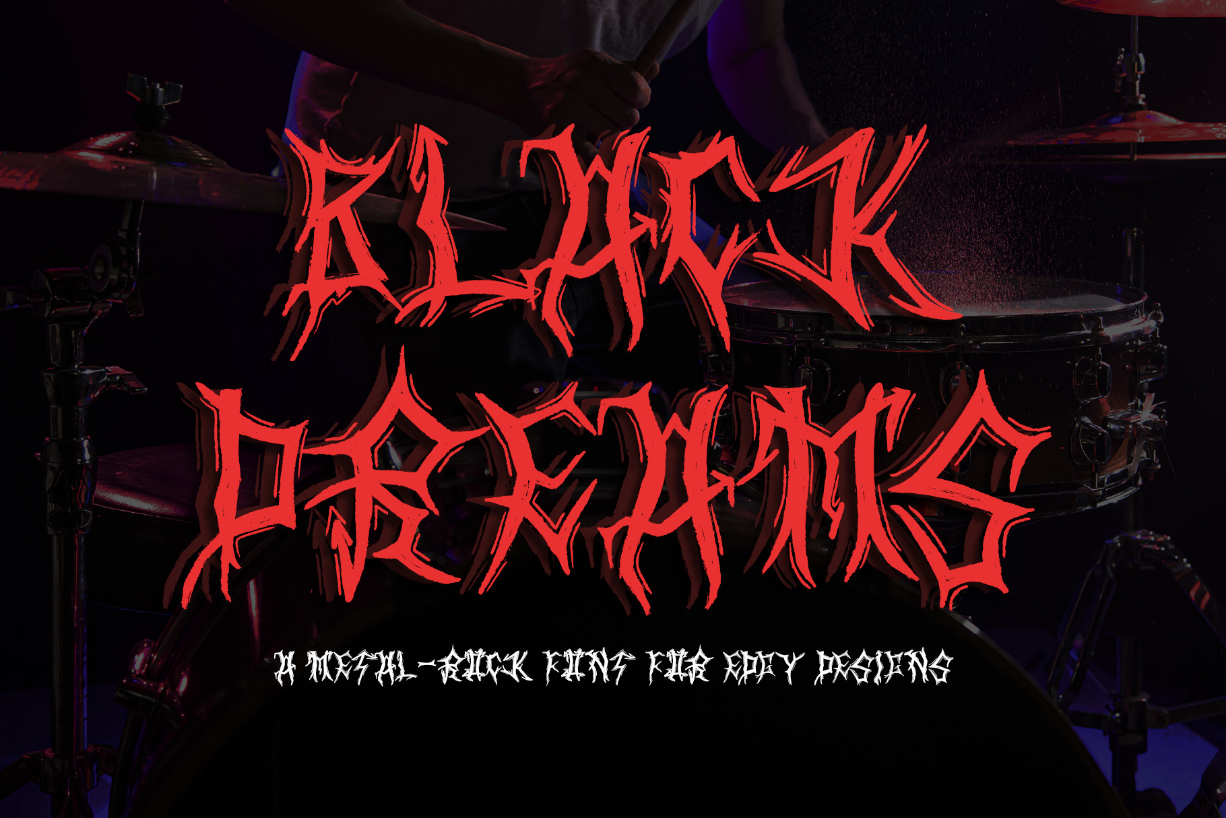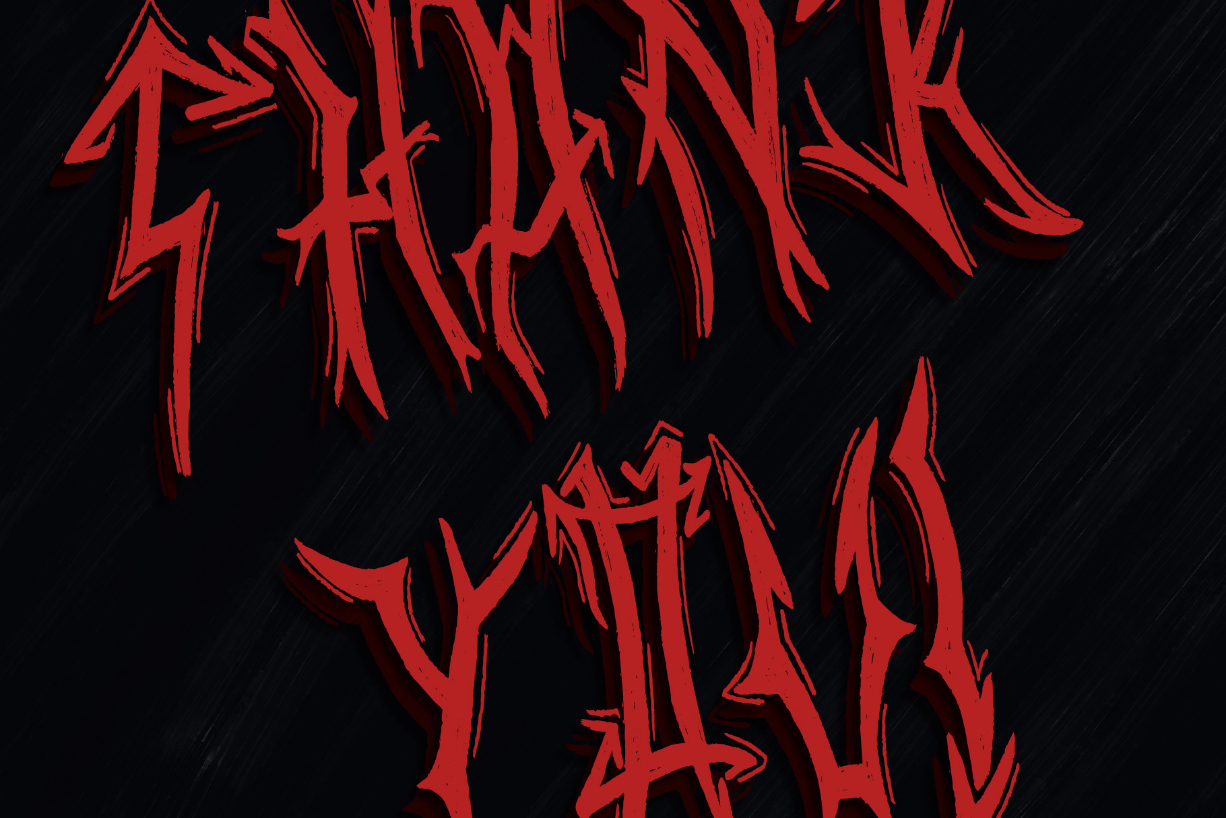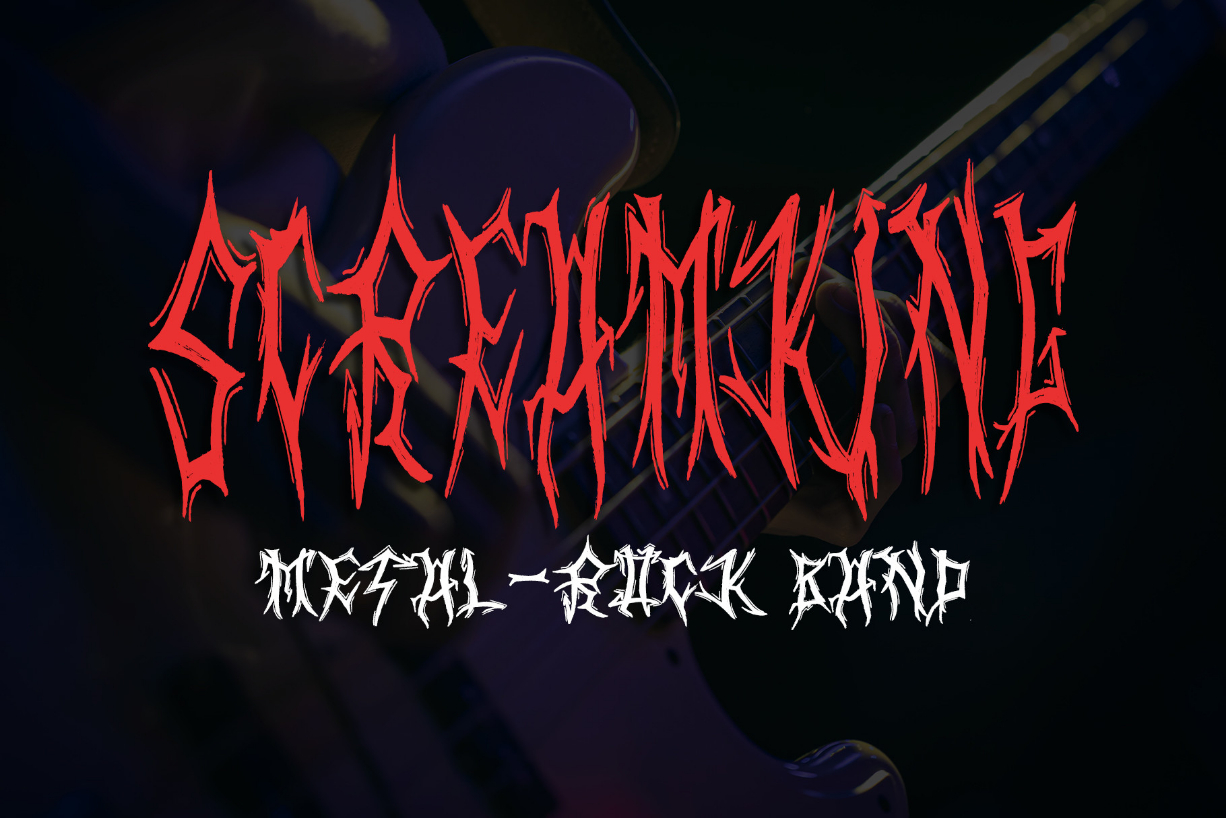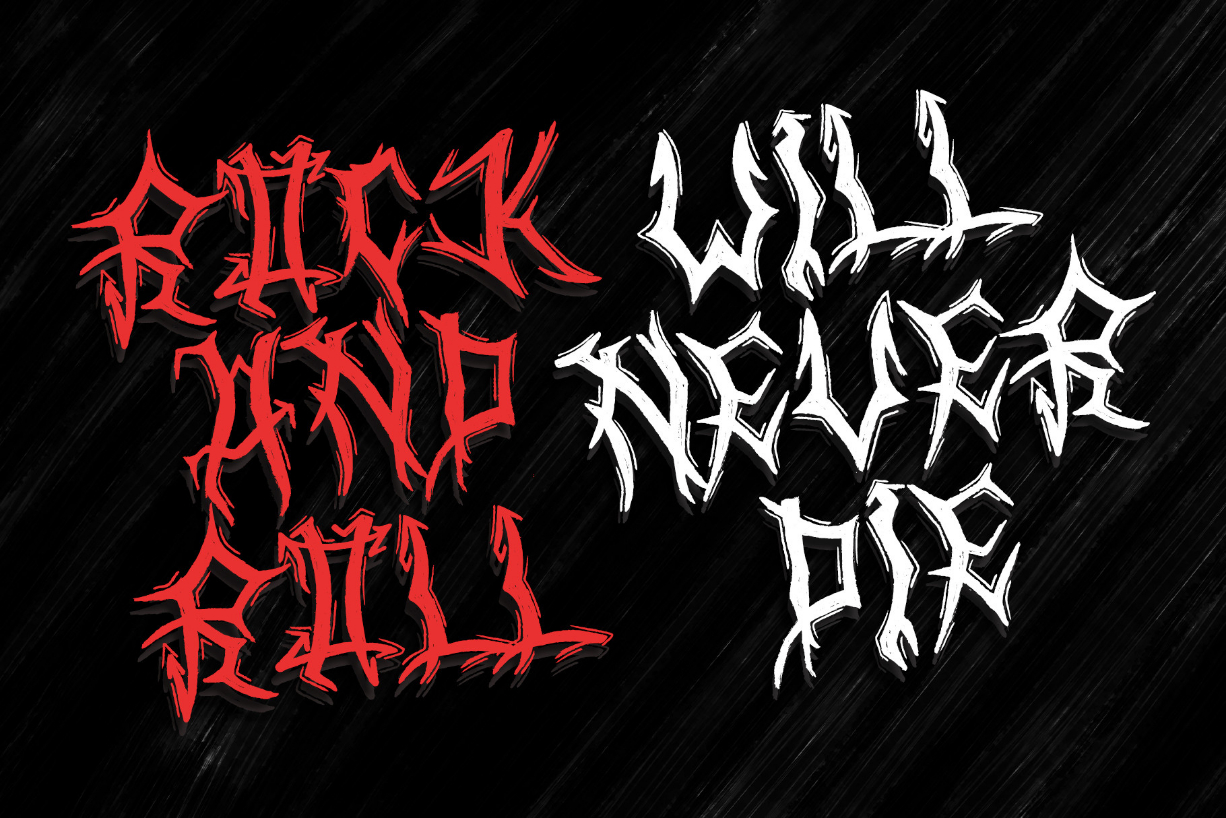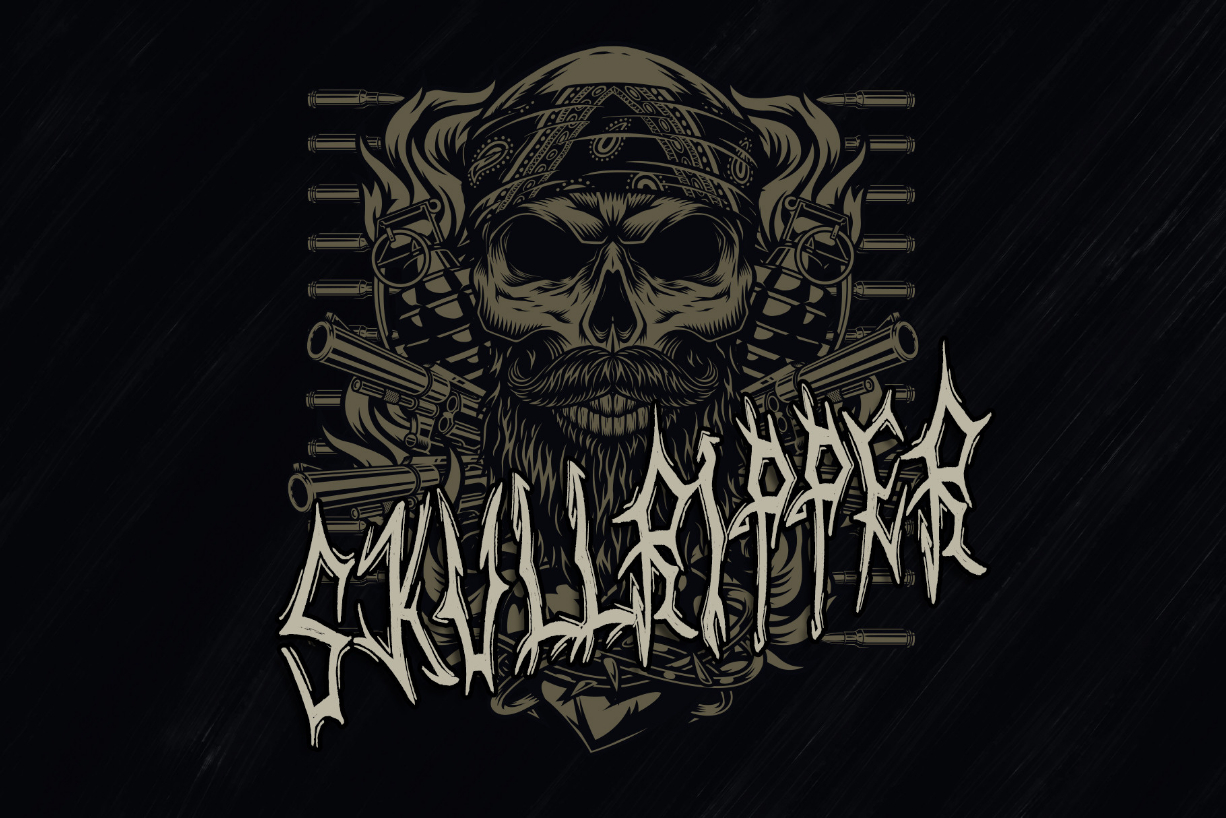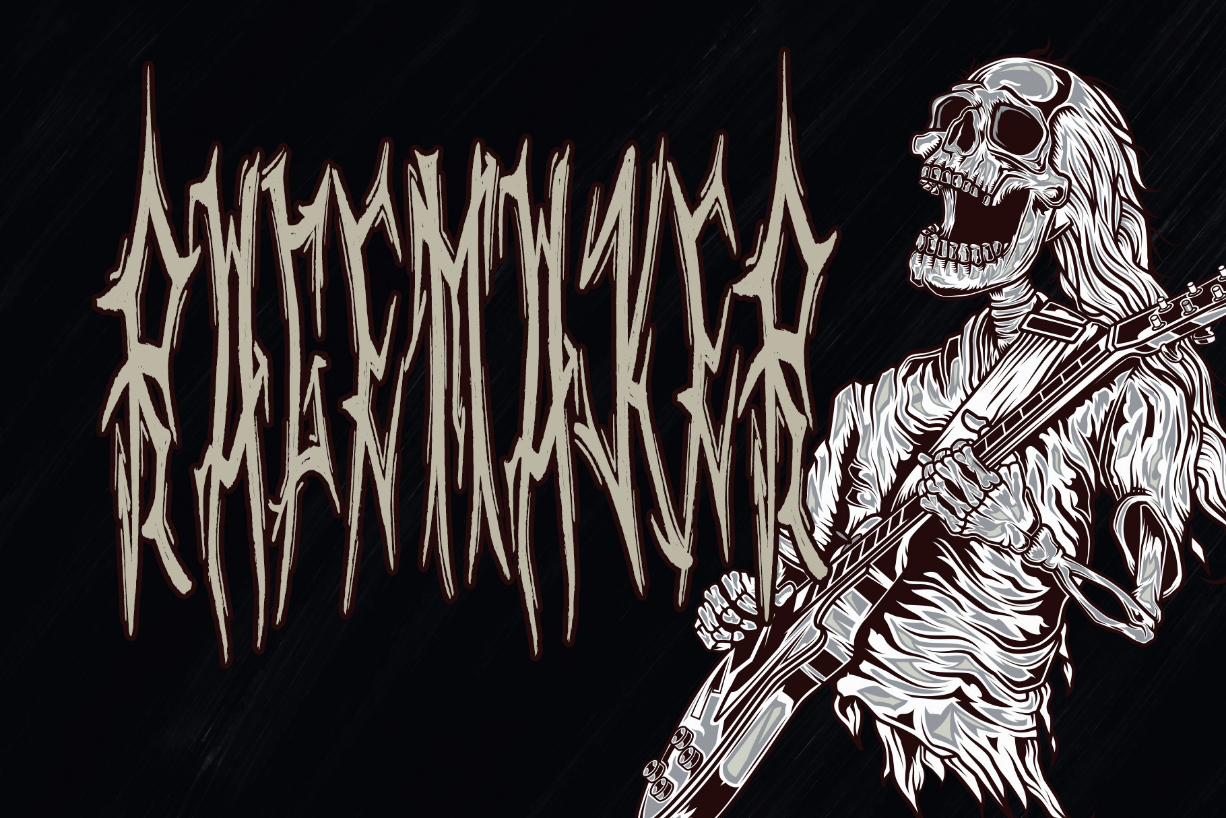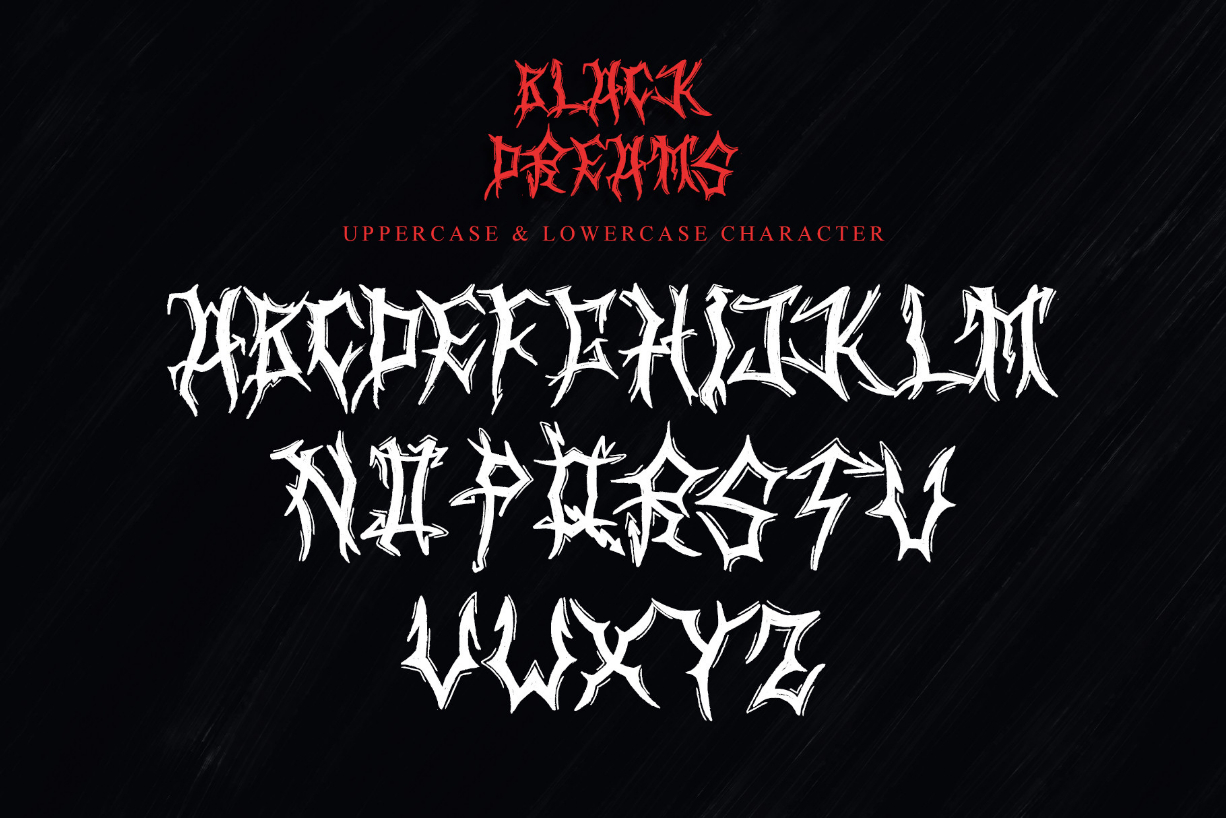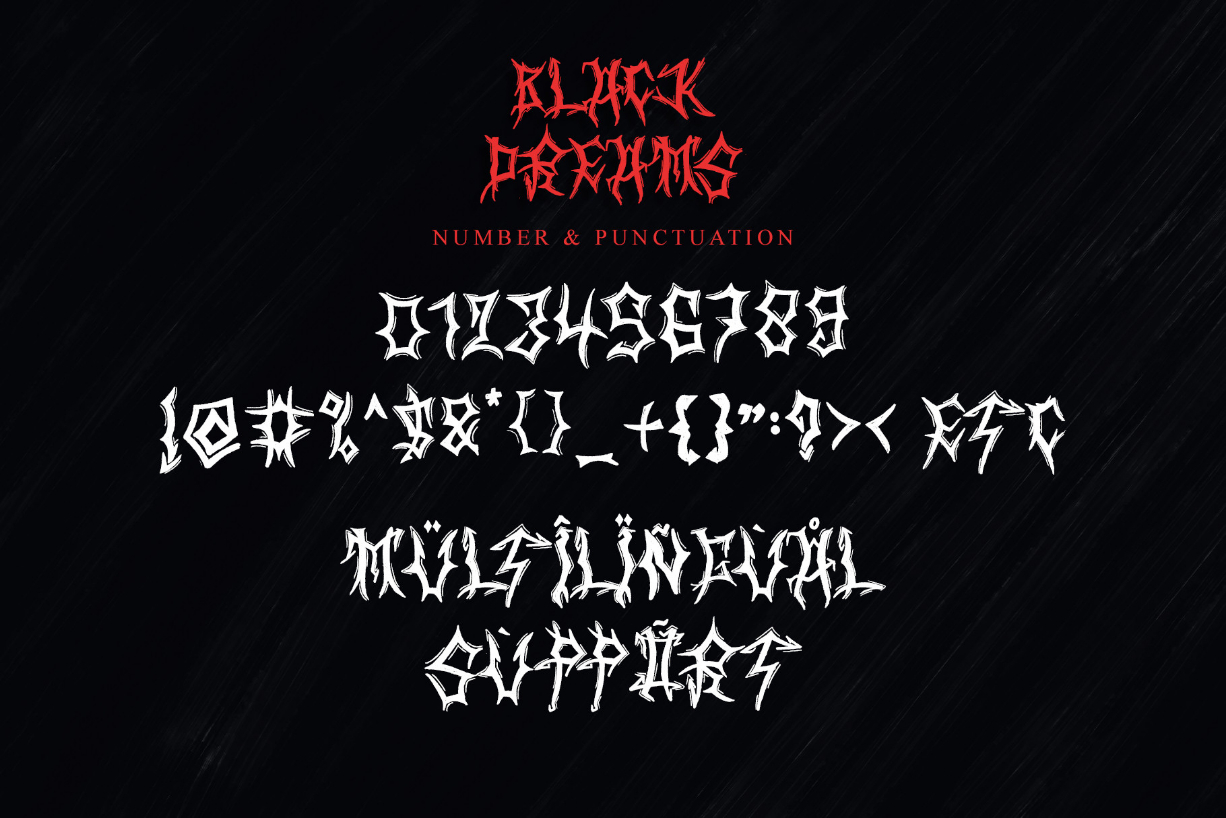
Black Dreams Font
About Black Dreams Font
Black Dreams is a bold and edgy blackletter font that captures the raw energy of heavy metal music. With rugged textures and unique glyphs, this font is perfect for album covers, t-shirts, and posters. Use it for headlines or body text to create designs that stand out in the metal scene.